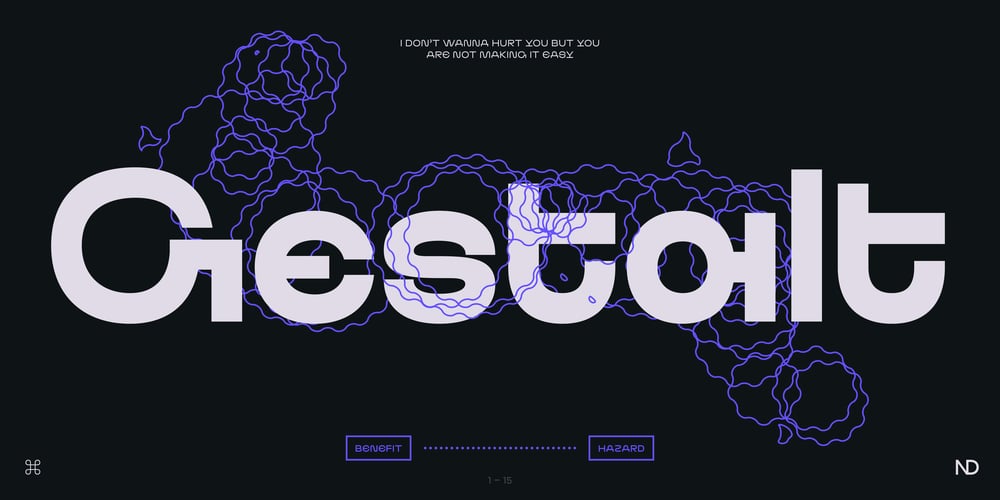
ND Gestalt Font Family was designed by Wolf Boese and published by NeueDeutsche. ND Gestalt contains 11 styles and family package options. If you watched ND Gestalt glitter in the dark near the Tannhauser gate. You know all these sans serifs will be lost in time, like tears in rain… If you like circles you will like ND Gestalt just as much. The unconventional stem to counter bridge in the lowercase gives this one its rather unique appeal. Fonts like this are unlike any other font – they’re either a benefit or a hazard. Beware!